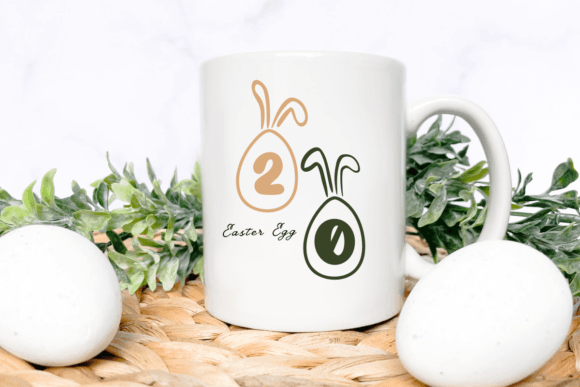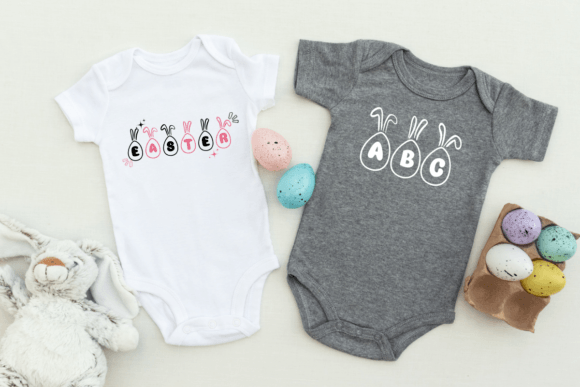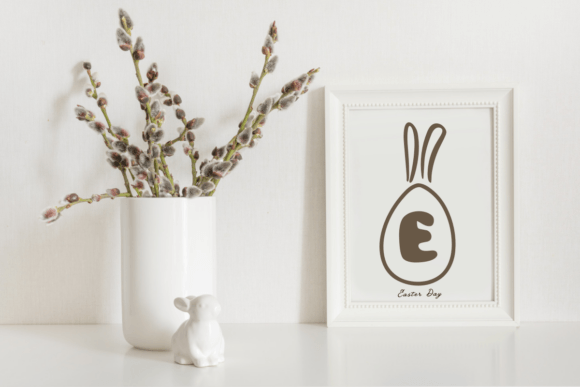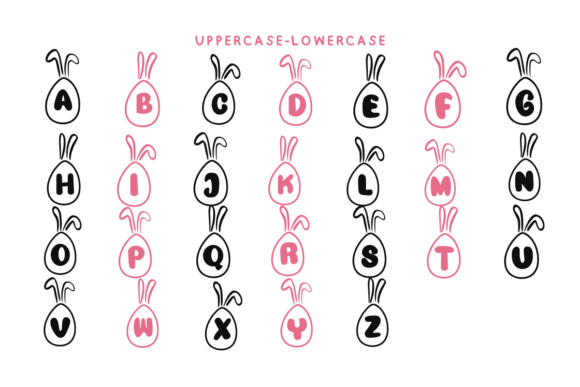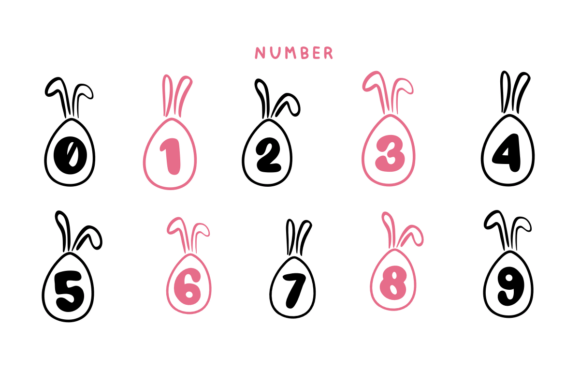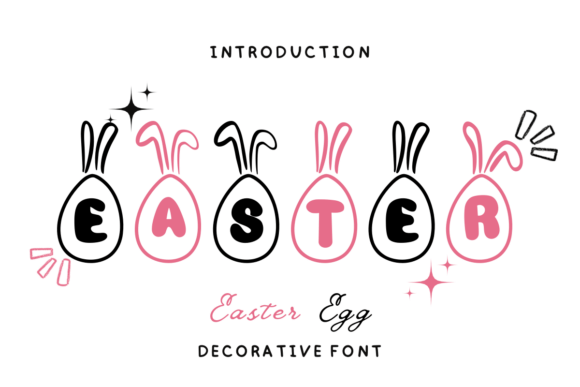
Easter Font: A Decorative Delight for Designers and Crafters
Easter is just around the corner, and with it comes a fresh wave of creativity and inspiration for designers and crafters. One of the most exciting aspects of the Easter season is the opportunity to experiment with new and festive fonts. In this article, we’ll be diving into the world of Easter fonts, specifically a decorative font that’s perfect for taking notes, writing a diary, or making greeting cards. But that’s not all – we’ll also explore the many other uses of this versatile font.
Introducing the Easter Font
The Easter font is a beautiful, decorative typeface that’s sure to add a touch of springtime charm to any design project. With its intricate details and playful flair, this font is perfect for anyone looking to add a bit of whimsy to their work. Whether you’re a designer, crafter, or simply a DIY enthusiast, the Easter font is a great addition to your toolkit.
Uses for the Easter Font
So, what can you use the Easter font for? The possibilities are endless! Here are just a few ideas to get you started:
- Note-taking and journaling: Add a touch of personality to your notes and journals with the Easter font. Perfect for keeping track of springtime events, appointments, and to-do lists.
- Greeting cards and invitations: Create beautiful, one-of-a-kind greeting cards and invitations for Easter and beyond. The Easter font is sure to impress friends and family.
- Banners and signs: Use the Easter font to create eye-catching banners and signs for parties, events, and special occasions.
- Social media posts: Add a bit of Easter flair to your social media posts with the Easter font. Perfect for creating engaging and shareable content.
- Mugs, cards, and shirts: Take your designs to the next level with the Easter font. Create custom mugs, cards, and shirts that are sure to delight.
- Stationery and craft projects: The Easter font is a great addition to any craft project. Use it to create custom stationery, gift tags, and more.
Tips for Using the Easter Font
Now that we’ve explored some of the uses for the Easter font, here are a few tips for getting the most out of this beautiful typeface:
- Experiment with colors: The Easter font looks great in a variety of colors, from pastel pinks and blues to bright and bold hues. Don’t be afraid to experiment and find the perfect color scheme for your design.
- Mix and match: Combine the Easter font with other fonts and design elements to create a unique and eye-catching look.
- Keep it simple: Don’t overcomplicate your design. The Easter font is beautiful on its own, so don’t be afraid to let it shine.
The Easter font is a versatile and decorative typeface that’s perfect for designers and crafters of all skill levels. With its intricate details and playful flair, this font is sure to add a touch of springtime charm to any design project. Whether you’re creating greeting cards, banners, or social media posts, the Easter font is a great choice. So why not give it a try? Download the Easter font today and start creating your own unique and festive designs.